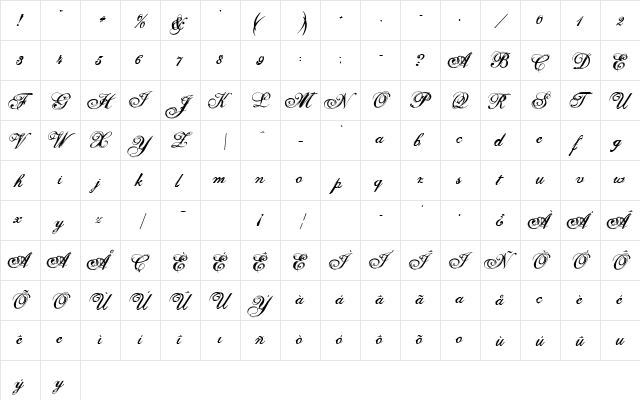
Selfish Regular Font Preview
Selfish Regular
Selfish Regular Font Details
Design Context for Selfish Typeface
Selfish is a composed and adaptable typeface that performs quietly and consistently across a wide range of design contexts.